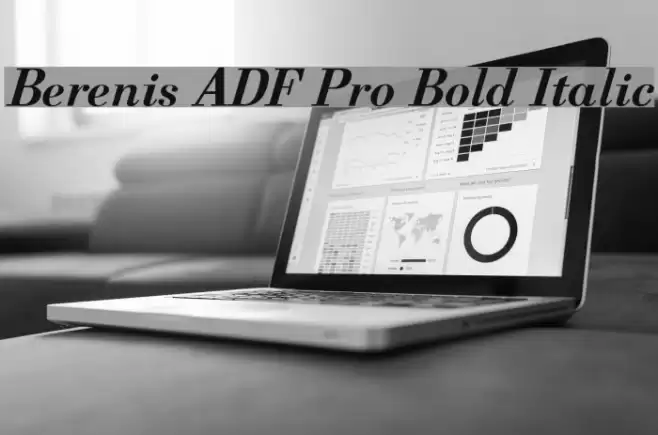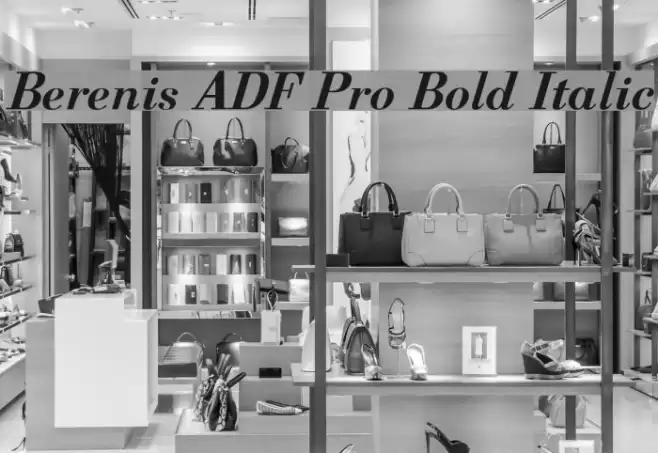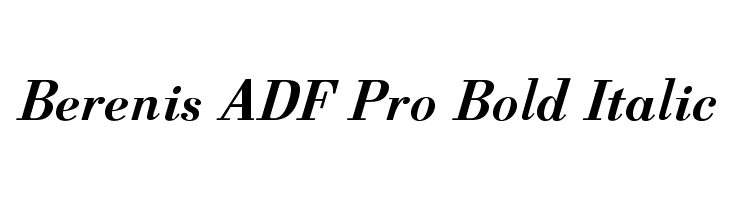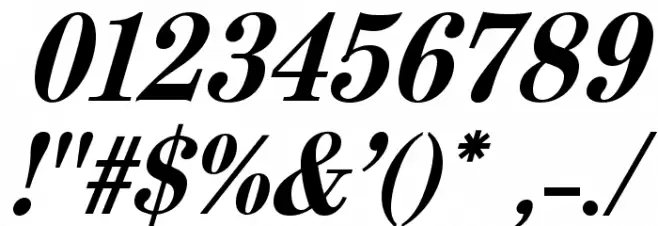
Berenis ADF Pro Bold Italic Font
Berenis ADF Pro Bold Italic Description
This font exhibits a classic serif style with a bold and italicized appearance, giving it a strong yet elegant presence. The characters are well-defined with a noticeable slant, adding a dynamic and sophisticated touch. The uppercase letters are tall and commanding, while the lowercase letters maintain a consistent flow, enhancing readability. The numerals are robust and align well with the overall style, making them suitable for both formal and creative applications. Special characters are crafted with precision, maintaining the font's cohesive aesthetic.
A bold, italic serif font with a classic and elegant style from Uncategorized fonts.
- Proposed Projects: Ideal for editorial design, book covers, luxury branding, and formal invitations.
- Overall Style: Classic
- Use Case: Headlines, Logos, Editorial design